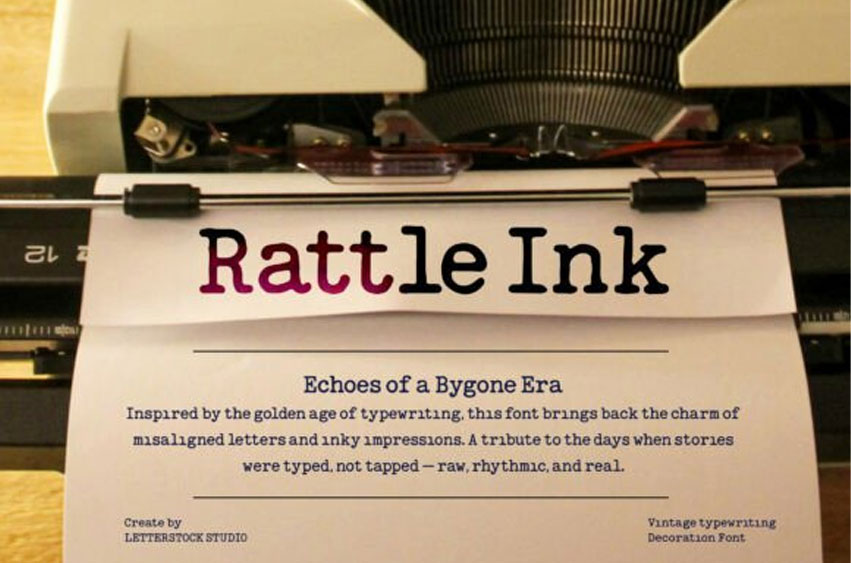
Rattle Ink Font
Rattle Ink Font: Bring timeless nostalgia to your designs with Rattle Ink — a beautifully imperfect vintage typewriter font inspired by old-school typewriting machines.
Each letter features subtle ink bleeds and slight misalignments to recreate the organic feel of classic typewritten manuscripts, retro letters, and antique documents. Rattle Ink is perfect for branding projects, book covers, quotes, posters, scrapbooking, and any design that needs an authentic retro touch.
Ideal For:
• Retro branding & logos
• Vintage posters & flyers
• Editorial layouts & book covers
• Quotes & scrapbooking
• Social media posts with a classic vibe
Add a piece of typewritten history to your next project with Rattle Ink!